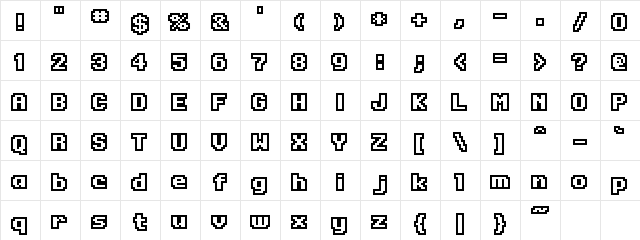
Onesize Reverse Regular
Design Context for Onesize Reverse Typeface
Onesize Reverse is a composed and adaptable typeface that performs quietly and consistently across a wide range of design contexts.